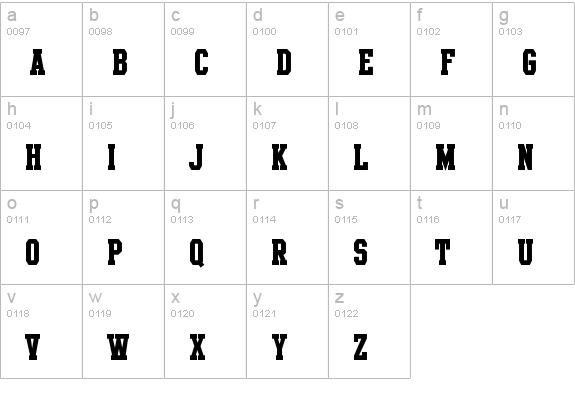
Intramural Bold JL is a strong, high-contrast variant in the Intramural typeface family \xE2\x80\x94 well suited to headlines, attention-grabbing titles, and strong calls-to-action.
Intramural Bold JL font is a captivating and dynamic typeface that exudes confidence and strength. Its bold and distinctive letterforms make a bold statement, perfect for headlines, logos, and branding projects. With a modern and edgy appeal, this font is sure to grab attention and leave a lasting impression. What sets Intramural Bold JL font apart is not just its striking design, but also its accessibility. This font is freely available to download at FontsMarket.com, allowing designers and creatives to unleash their creativity without any restrictions. Whether you're a professional graphic designer or a hobbyist looking to add a touch of boldness to your projects, Intramural Bold JL font is an excellent choice. The versatility of this font is truly impressive. Its strong and assertive nature makes it suitable for a wide range of design applications, from posters and flyers to web design and social media graphics. No matter the medium, Intramural Bold JL font will elevate your designs and make them stand out from the crowd. With its clean and legible letterforms, Intramural Bold JL font ensures readability across different sizes and platforms. Its attention to detail and refined craftsmanship make it a reliable choice for any project, whether it's in print or digital. So why wait? Download Intramural Bold JL font for free at FontsMarket.com and unlock a world of possibilities. Whether you're looking to make a bold statement or want to add a touch of strength to your designs, this font is here to help you make an impact. Embrace the freedom of creativity and let Intramural Bold JL font be your secret weapon.